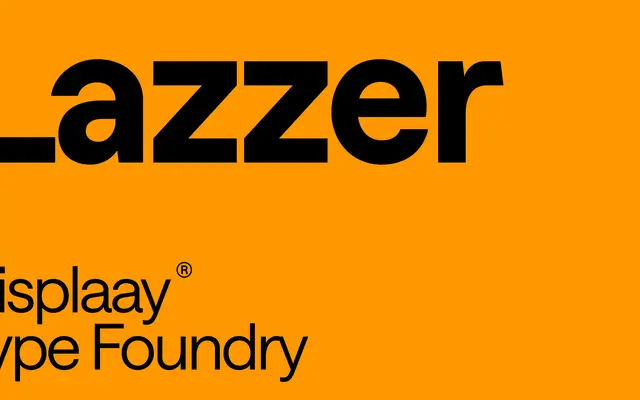
A seven-weight geometric sans with variable font support across weight and slant axes, aimed at digital and tech-inflected design work.
Fourteen styles across seven weights from Thin to Heavy, each with a matching italic, make up the Lazzer family. A variable font with weight and slant axes gives further control between named instances. The specimen leans heavily on digital and programming imagery, positioning the typeface for tech, UI and editorial contexts where a clean geometric voice is needed.
The specimen imagery and digital/tech-themed copywriting suggest a clean, geometric sans-serif construction. The display usage and variable weight axis reinforce a modern geometric classification.